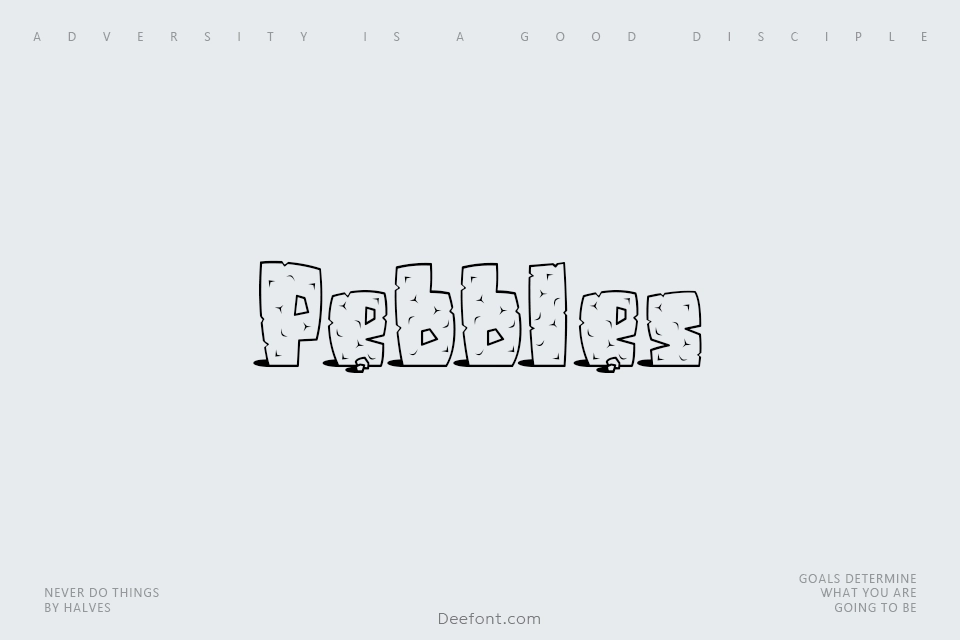
Pebbles Font
Pebbles is a playful and rugged display font that features characters resembling pebbles or stones, giving it a unique, textured appearance. Each letter is crafted with irregular edges and a slightly uneven surface, mimicking the natural look of rocks. The font's bold and chunky style makes it perfect for children's books, cartoons, nature-themed designs, and creative branding projects that require a fun and informal vibe. With 230 carefully crafted characters and consistent weight throughout, the font maintains excellent readability despite its highly decorative nature, making it an ideal choice for headlines, signage, and playful creative work.